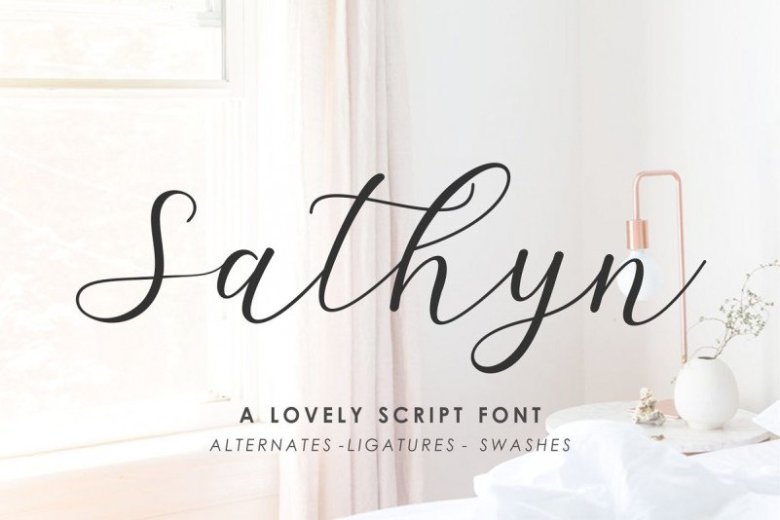
Sathyn Script Font
A lovely script font by MJB Letters. This is a set of calligraphy style font, Similar to the brush strokes, rough and delicate combination, smooth strokes, open structure, showing atmosphere and elegance. Introducing Sathyn Font. Sathyn Script Font was built with OpenType features and includes beginning and ending swashes, numbers, punctuation, alternates, ligatures and it also supports other languages. Sathyn is a stunningly beautiful handwritten font for branding / wedding invites / greeting cards / logo design / promotional graphics.